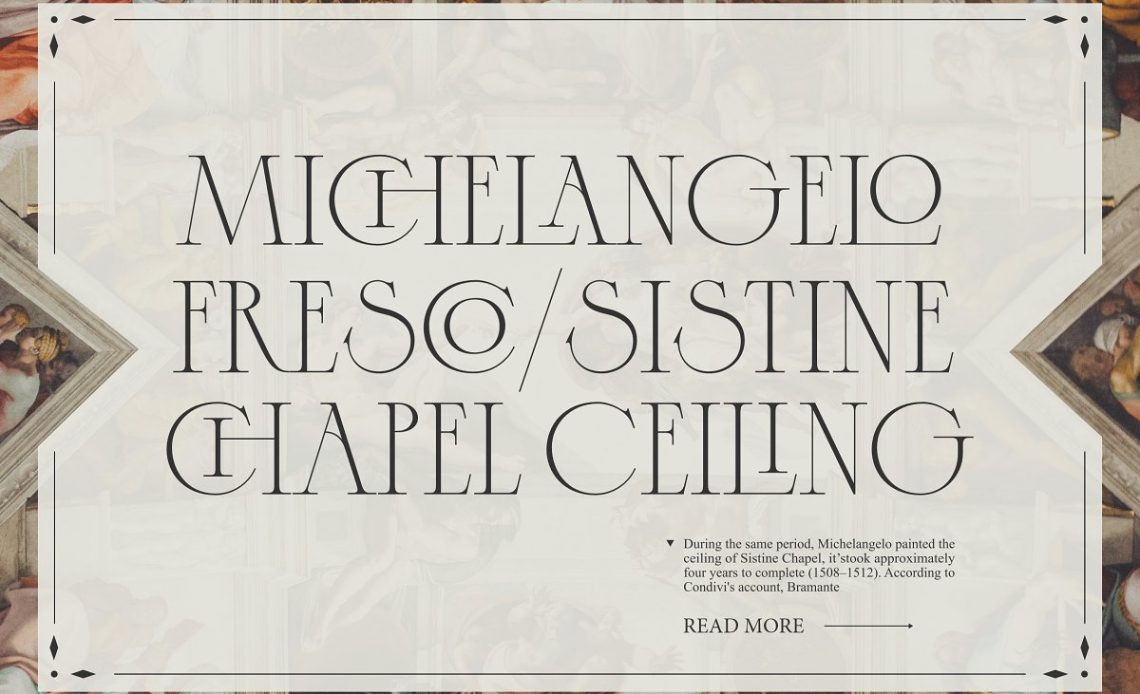
Looking for the perfect font to elevate your project and captivate your audience? Look no further than Caseopia Elegant Display Serif Font! Created by the talented Annas Alam, this font offers the perfect balance between classic and modern styles. Its elegant design exudes luxury and sophistication, making it perfect for a wide range of projects.
Caseopia features uppercase-only characters, as well as punctuation and numerals, making it a versatile choice for a variety of applications. Additionally, the font includes ligatures that add a unique touch to any text. With its wide range of uses, Caseopia is the ideal choice for editorial projects, logo design, wedding invitations, clothing branding, product packaging, magazine headers, and so much more!